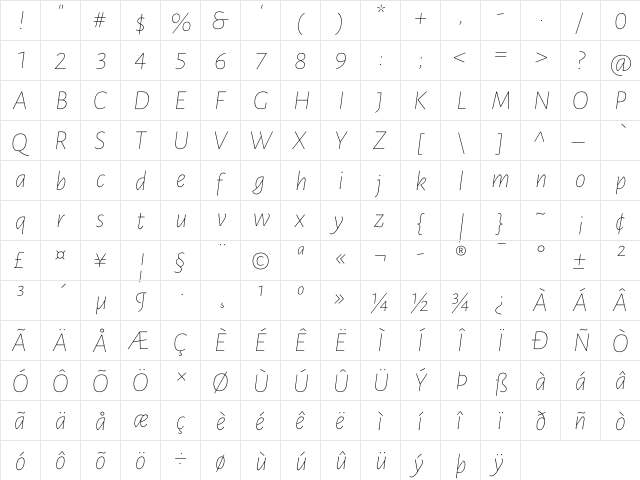
Luna Extra Light Italic
Foundry Huerta Tipografica
FoundryHuerta Tipografica
DesignerJuan Pablo del Peral
Design Context for Luna Extra Light Typeface
Luna Extra Light offers clean, dependable letterforms without strong stylistic allegiance, making it a practical choice for designers who need flexibility. Its italic angle brings a sense of urgency and motion to the letterforms. Its slender proportions lend an understated elegance to any composition.